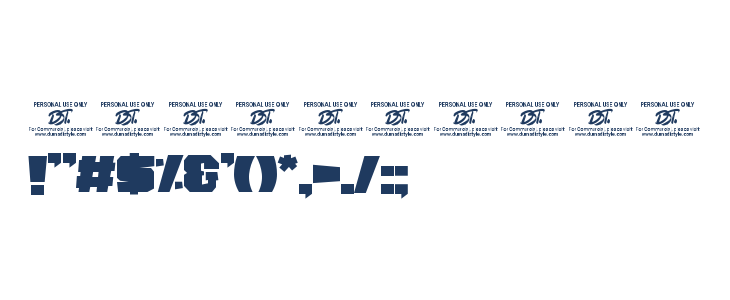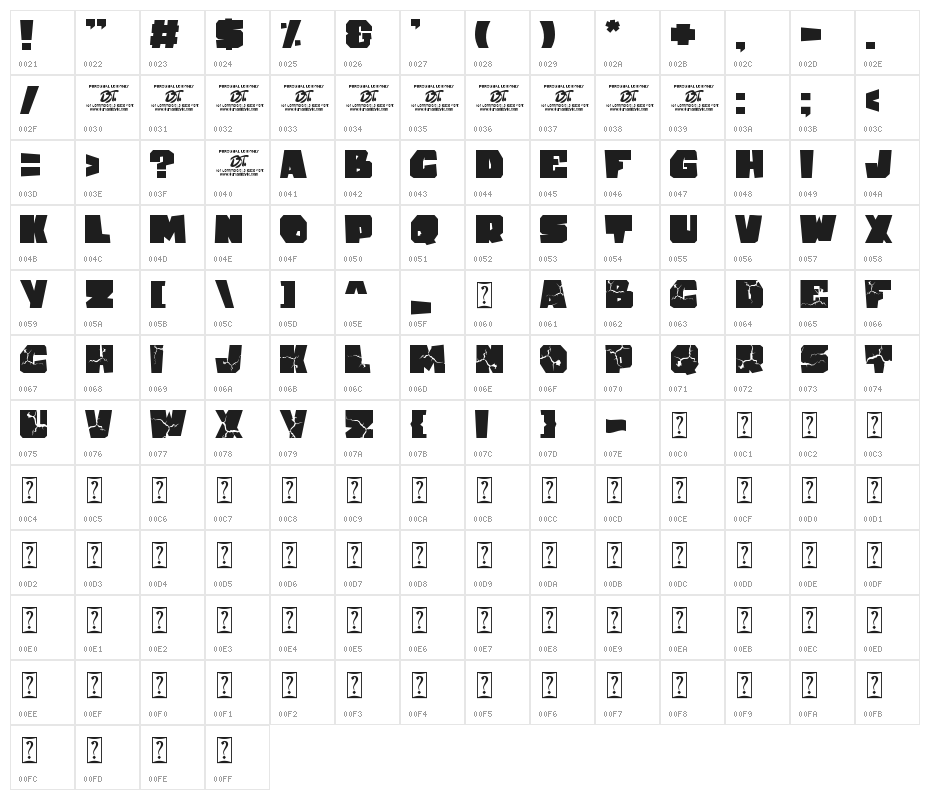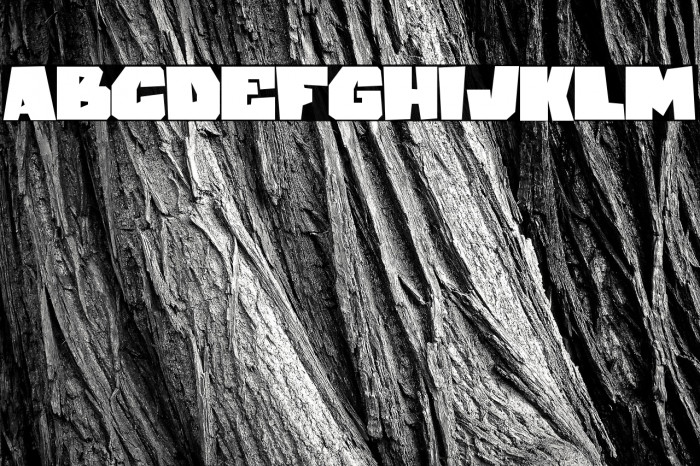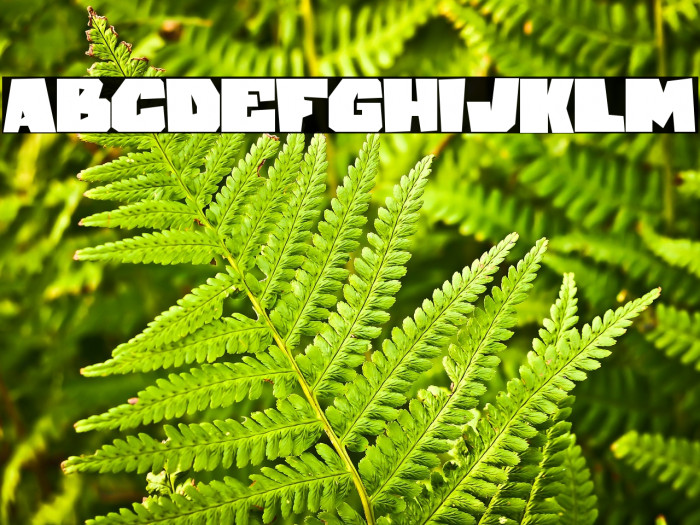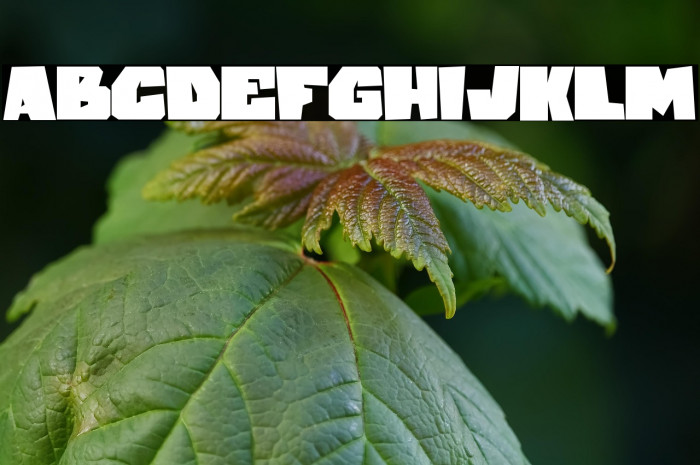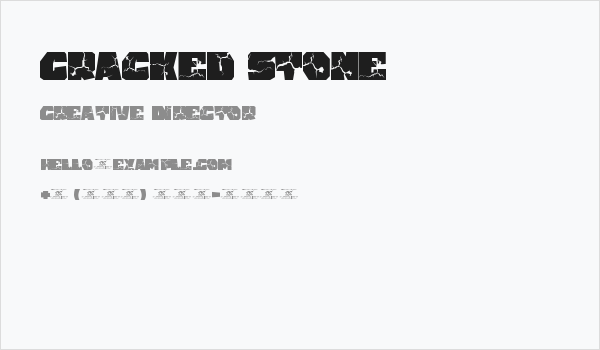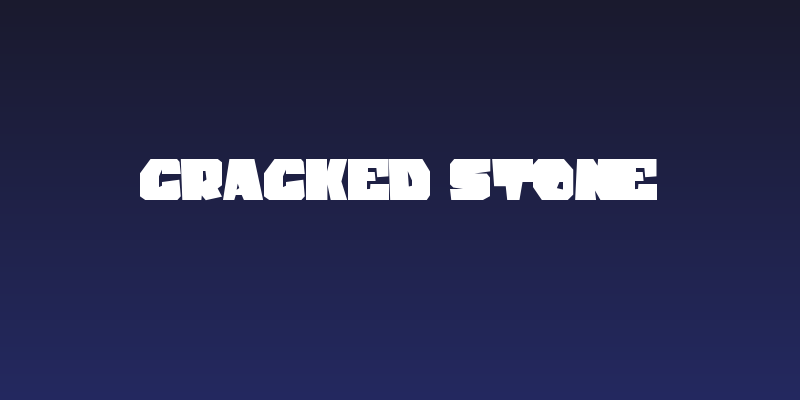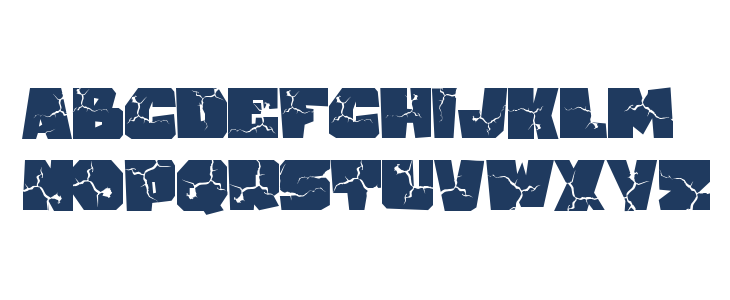
Cracked stone Font
Cracked stone Description
This font features a bold and rugged design, reminiscent of cracked stone or shattered rock surfaces. Each character is uniquely fragmented, giving the impression of strength and durability while maintaining a sense of chaos and unpredictability. The uppercase letters are particularly striking, with jagged edges and irregular shapes that suggest a natural, weathered texture. The font's bold weight and high contrast make it stand out, ideal for projects that require a dramatic and impactful visual statement. Its distinct style is well-suited for themes related to nature, construction, or any context where a raw, earthy aesthetic is desired.
| Use Case | Logos, Posters, Headlines |
| Proposed Projects | Perfect for use in posters, logos, video game titles, or any design requiring a strong, natural theme. |